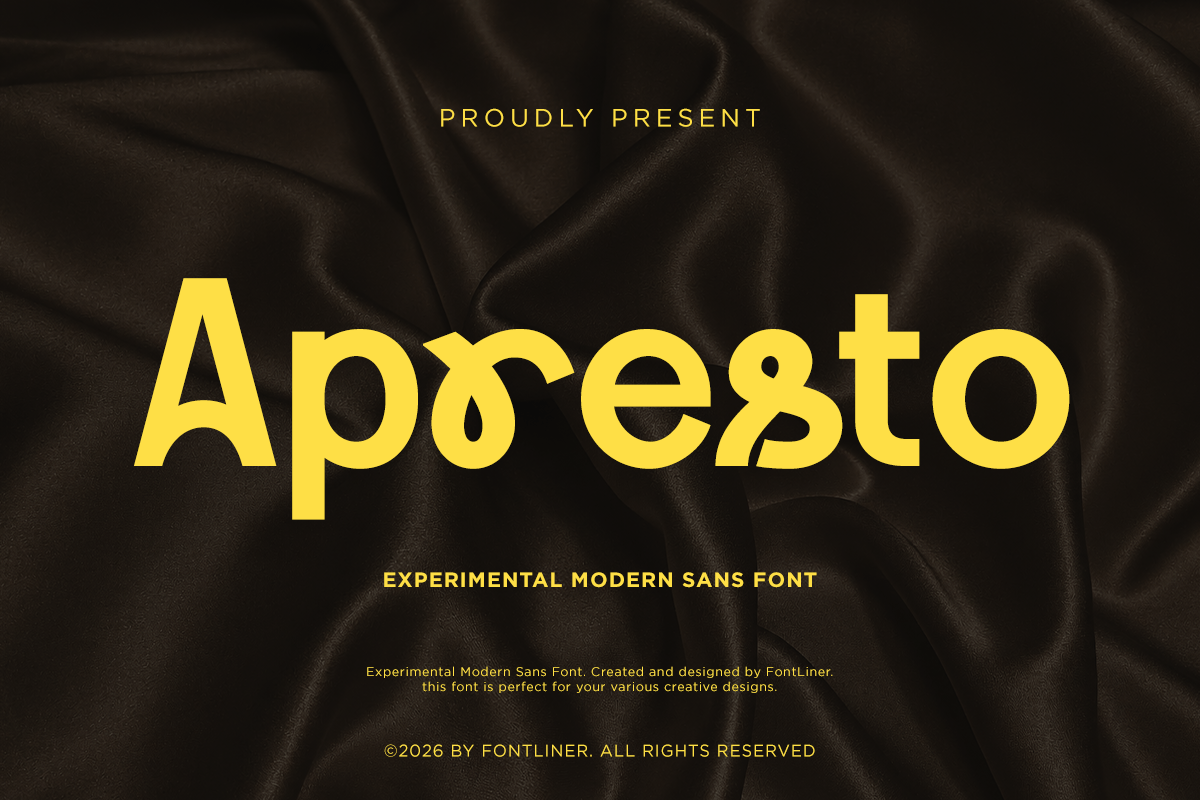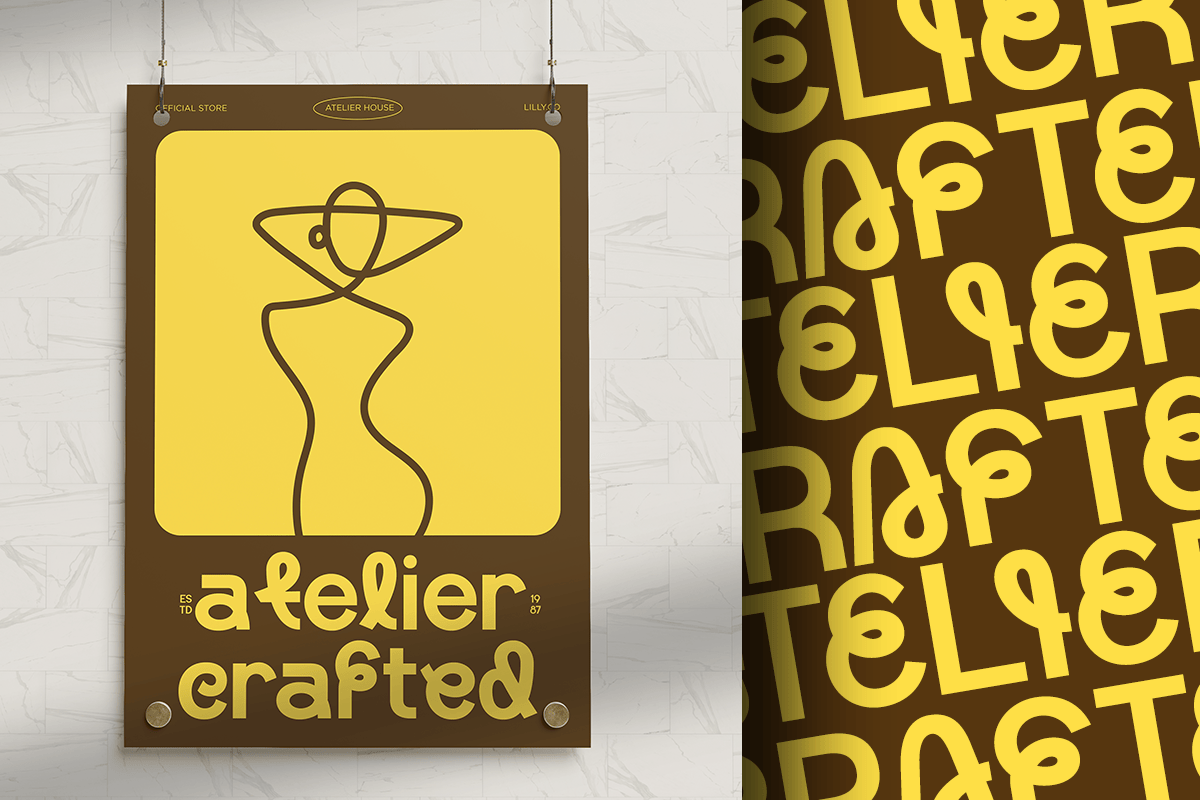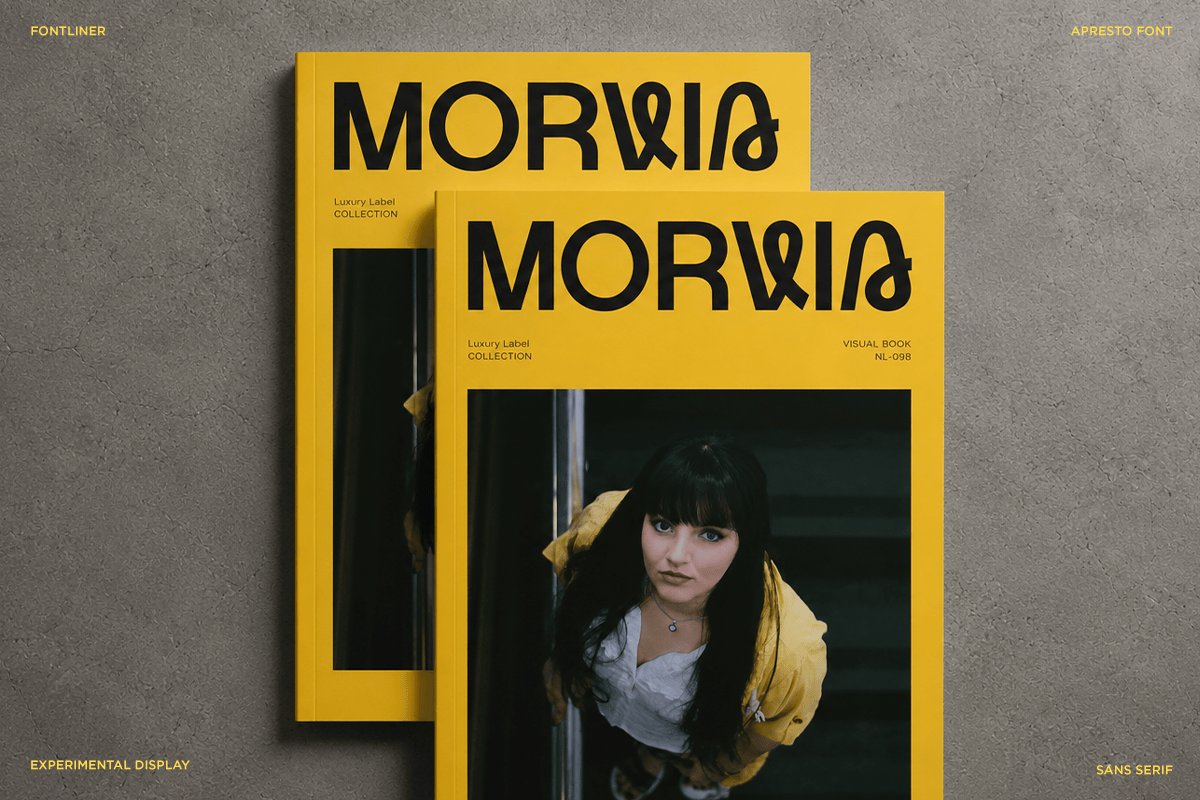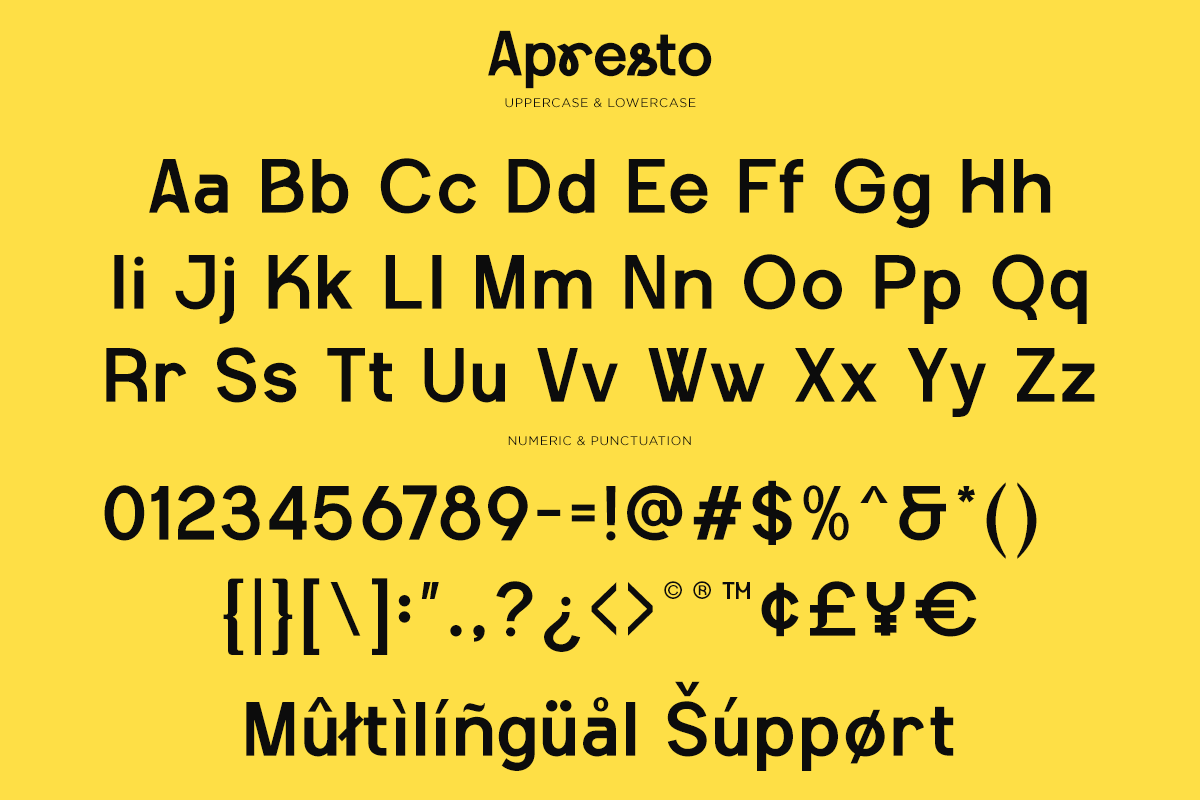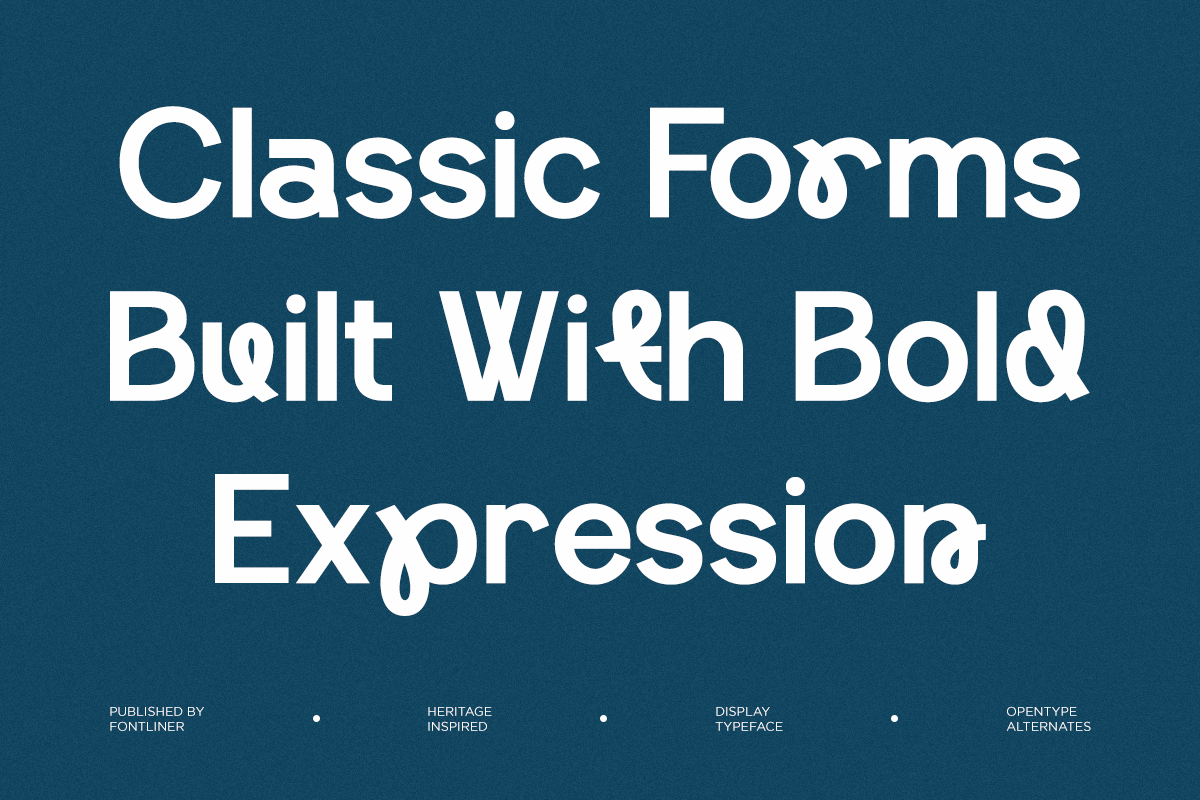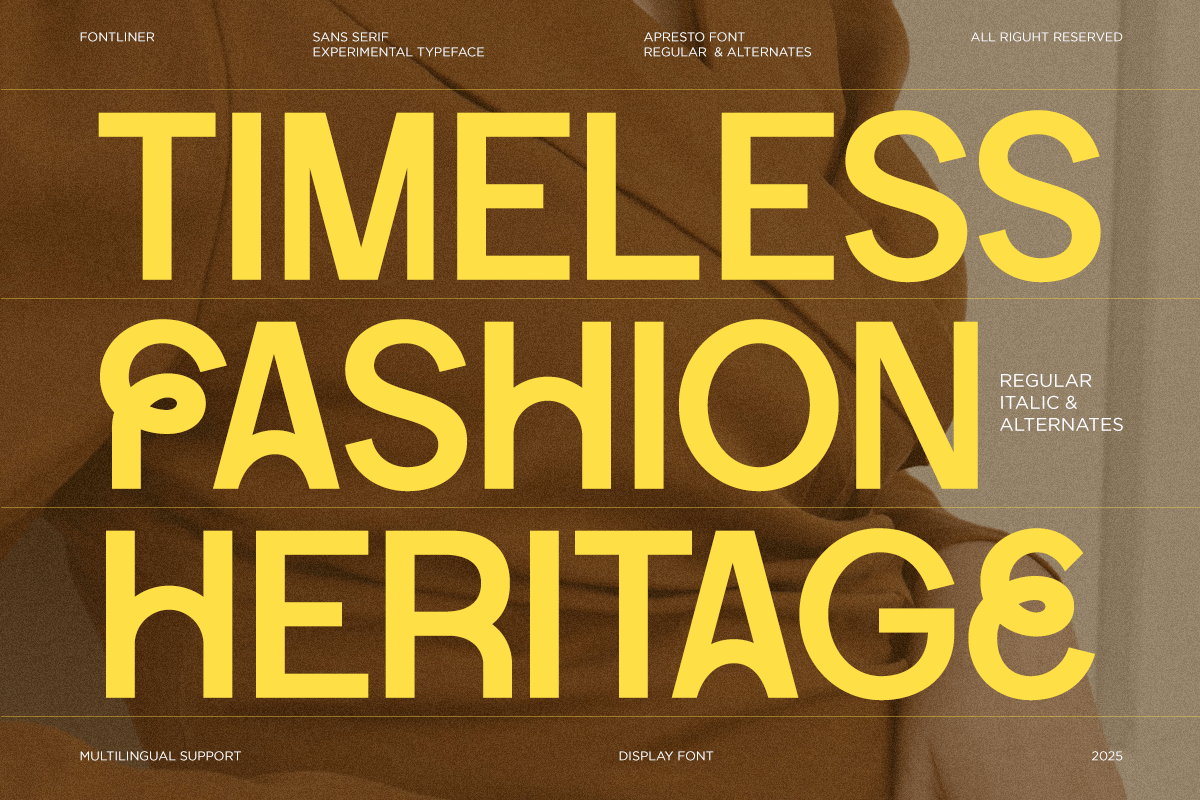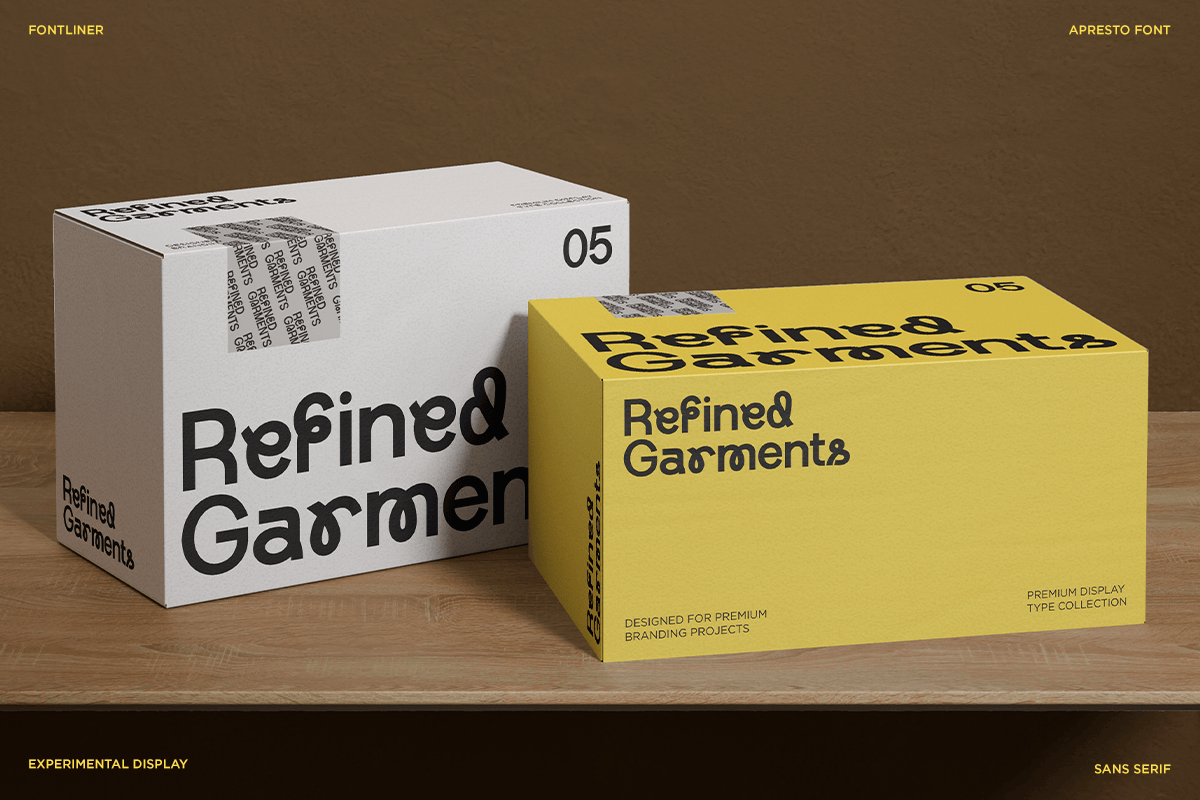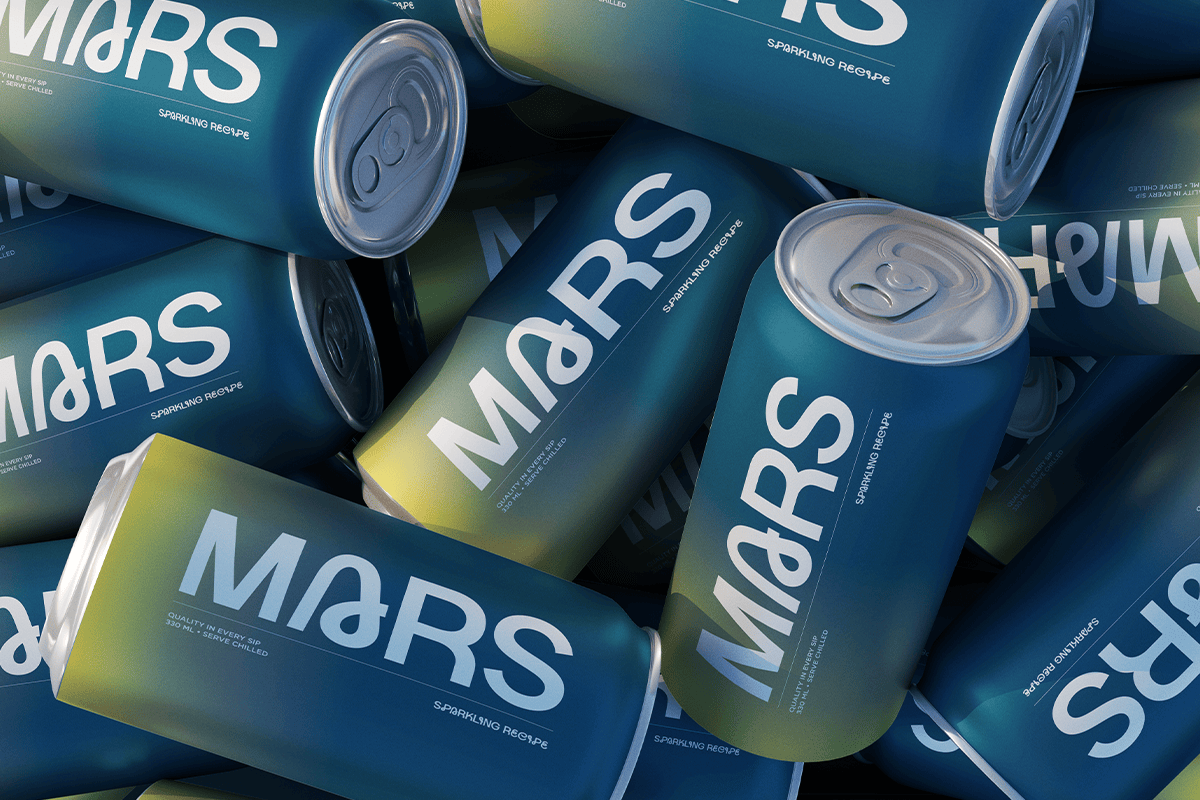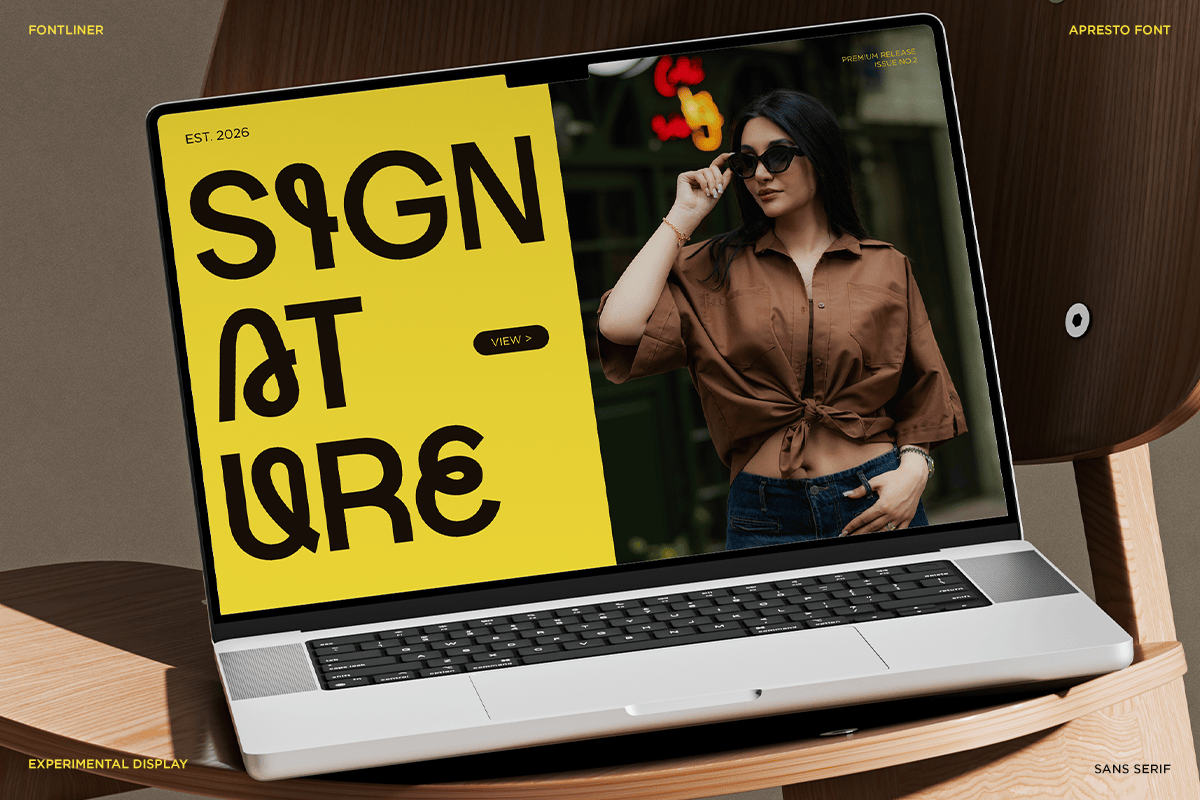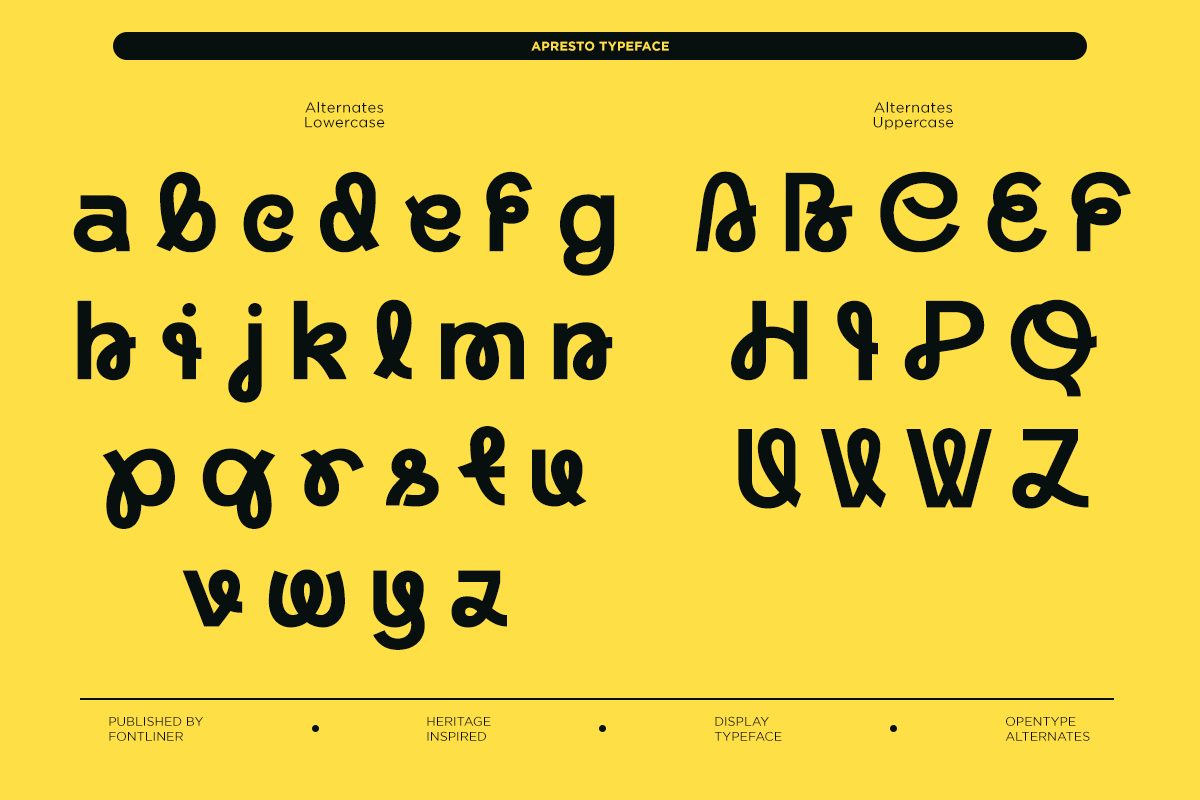
Apresto – Experimental Modern Sans Serif Font
Apresto is an experimental modern sans serif font that blends bold geometric construction with playful rounded details, creating a fresh and contemporary visual identity. Its distinctive letterforms strike the perfect balance between creativity and readability, making it ideal for branding, fashion campaigns, editorial headlines, posters, packaging, social media, and modern visual communication.
Designed for designers who want to make a memorable impression, Apresto delivers expressive typography with a unique personality. The font includes uppercase, lowercase, numerals, punctuation, multilingual support, and stylistic alternates, providing exceptional versatility for logos, product packaging, creative agencies, lifestyle brands, merchandise, websites, and digital content.
Whether you’re building a fashion label, streetwear brand, creative studio, cosmetic packaging, café identity, or eye-catching marketing campaign, Apresto offers bold character with contemporary appeal. Available in OTF, TTF, and WOFF formats, this modern sans serif font is crafted to help your designs stand out across both digital and print media.
- Regular and Italic
- Stylistic Experimental Alternates
- Uppercase and Lowercase
- Number, Symbol, and Punctuation
- Multilingual Support